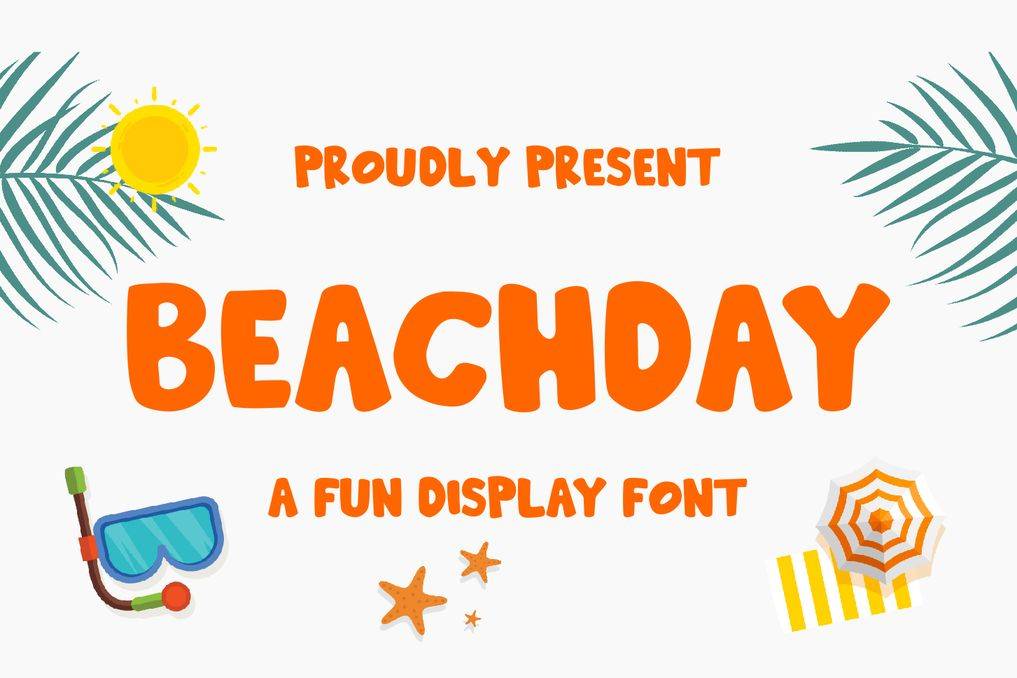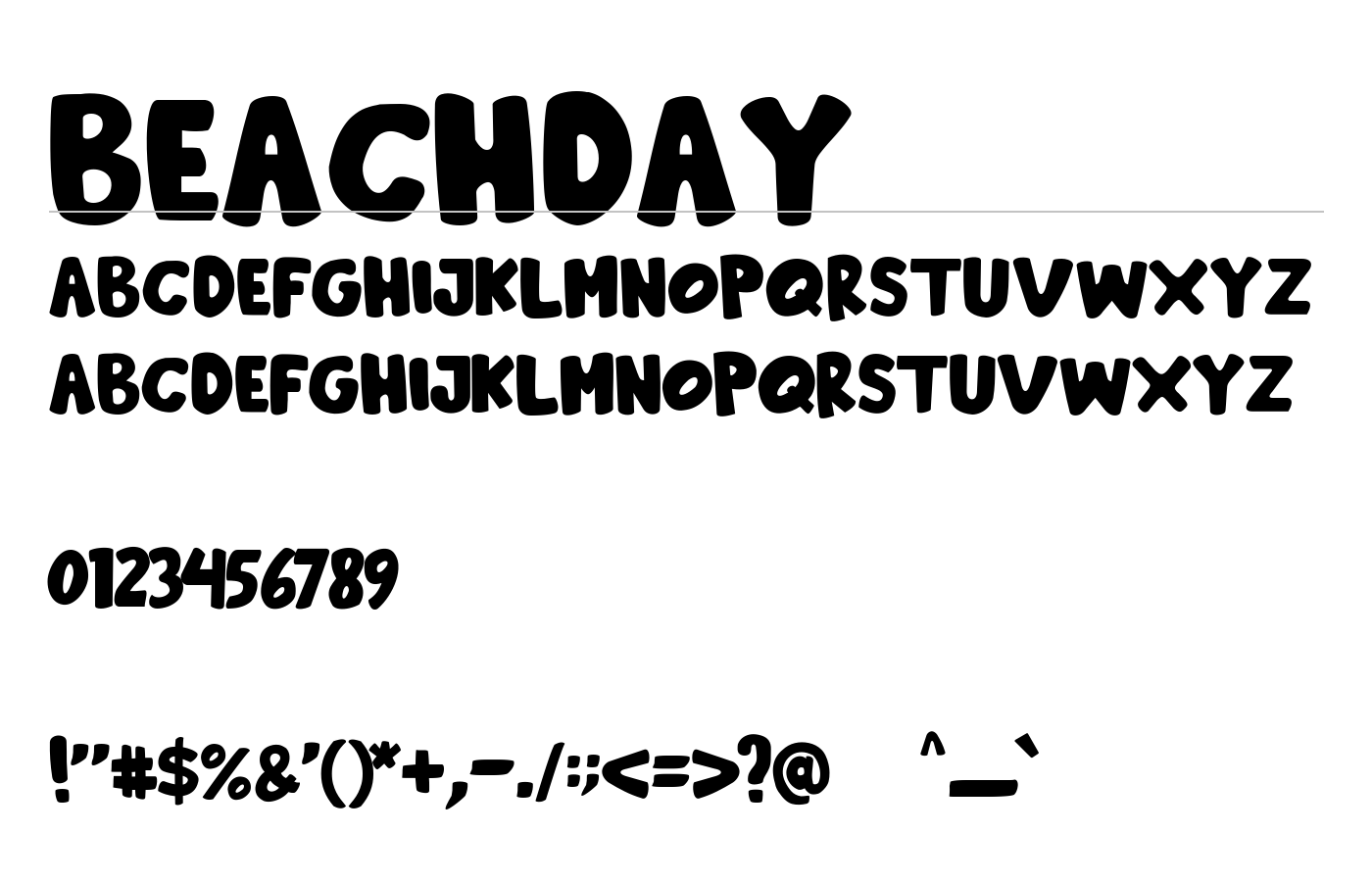
Beachday is a playful, bold sans serif font with a chunky, rounded style that exudes a fun, casual vibe. Its irregular, hand-drawn shapes give it a friendly, approachable personality, making it perfect for projects that want to communicate warmth and creativity. This font works best for headlines, logos, and packaging where a lively and informal look is desired.
Beachday Font
About Beachday Font